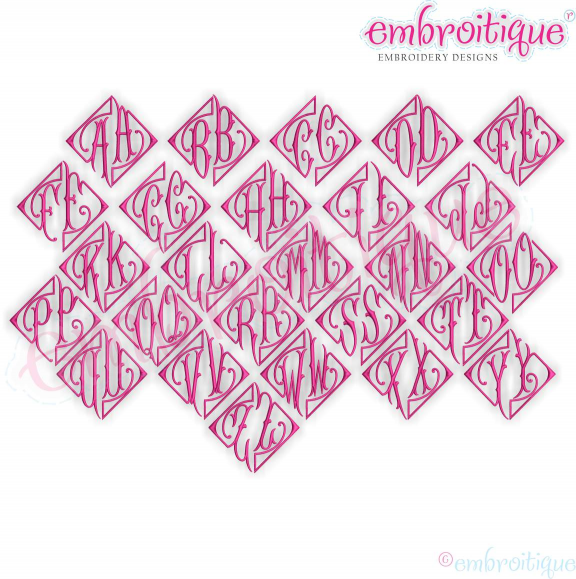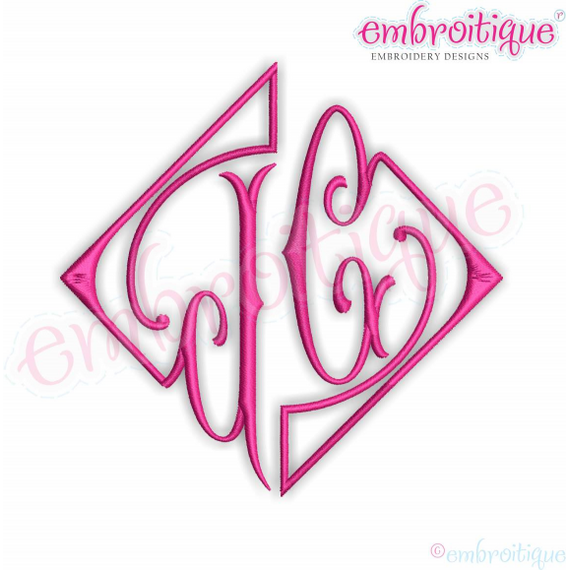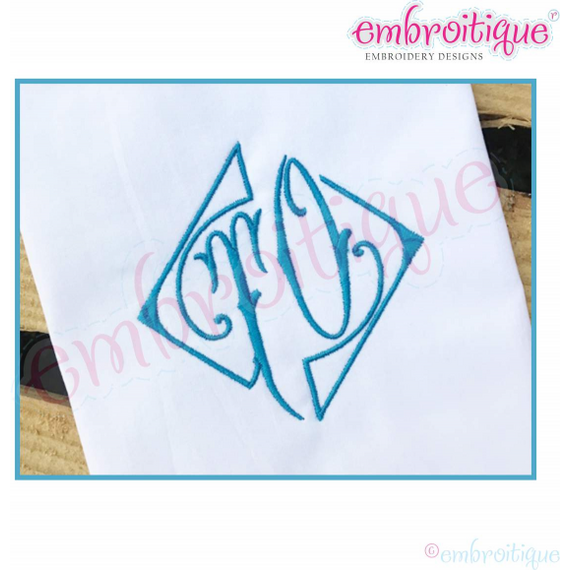
Diamond 2 Letter Initial Monogram Font for Machine Embroidery - 2", 3", 4", 5", 6"
a beautiful vintage monogramming font. Â Uppercase letters for the left initial, lower case letters for the right initial.
A-Z